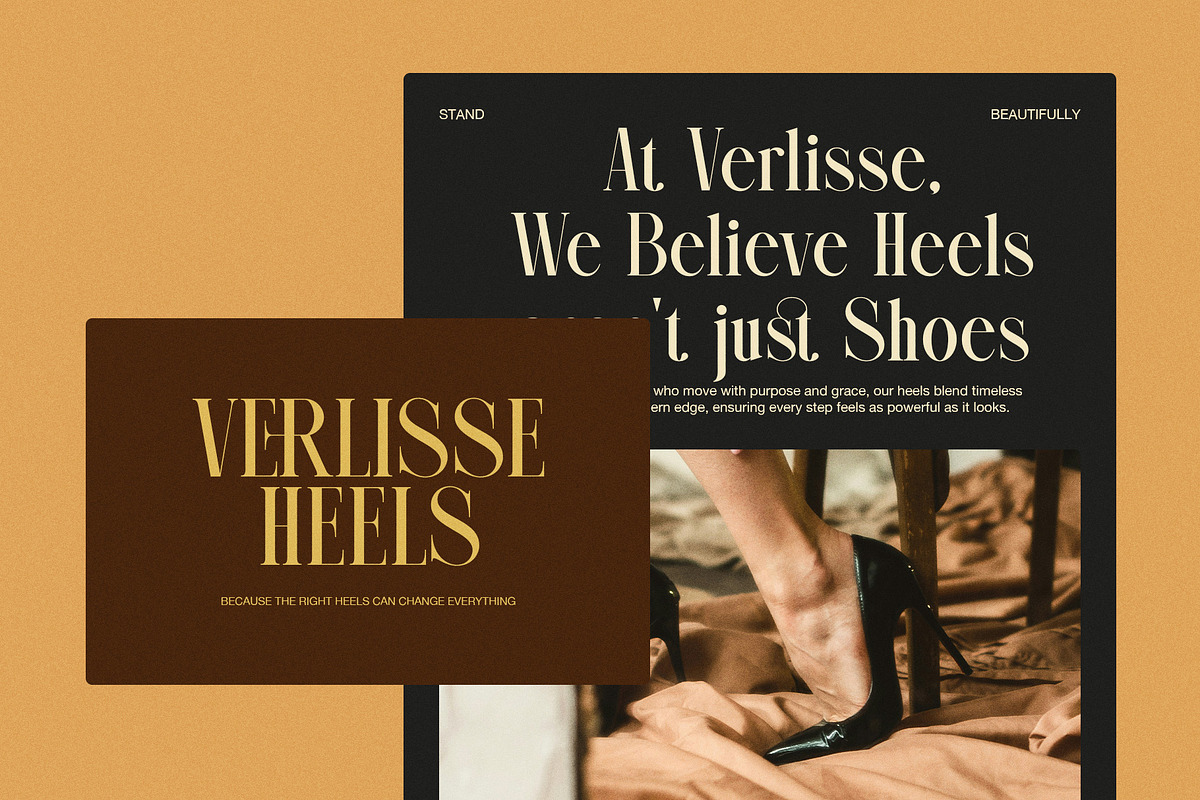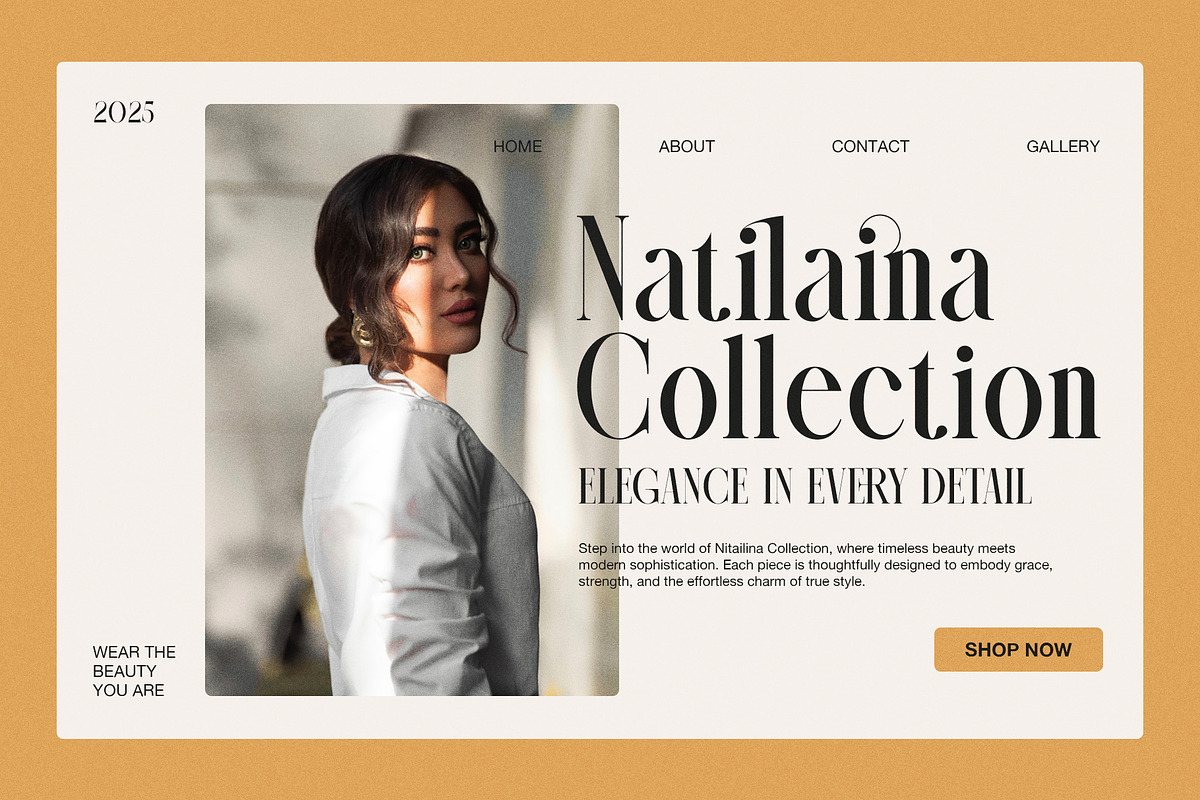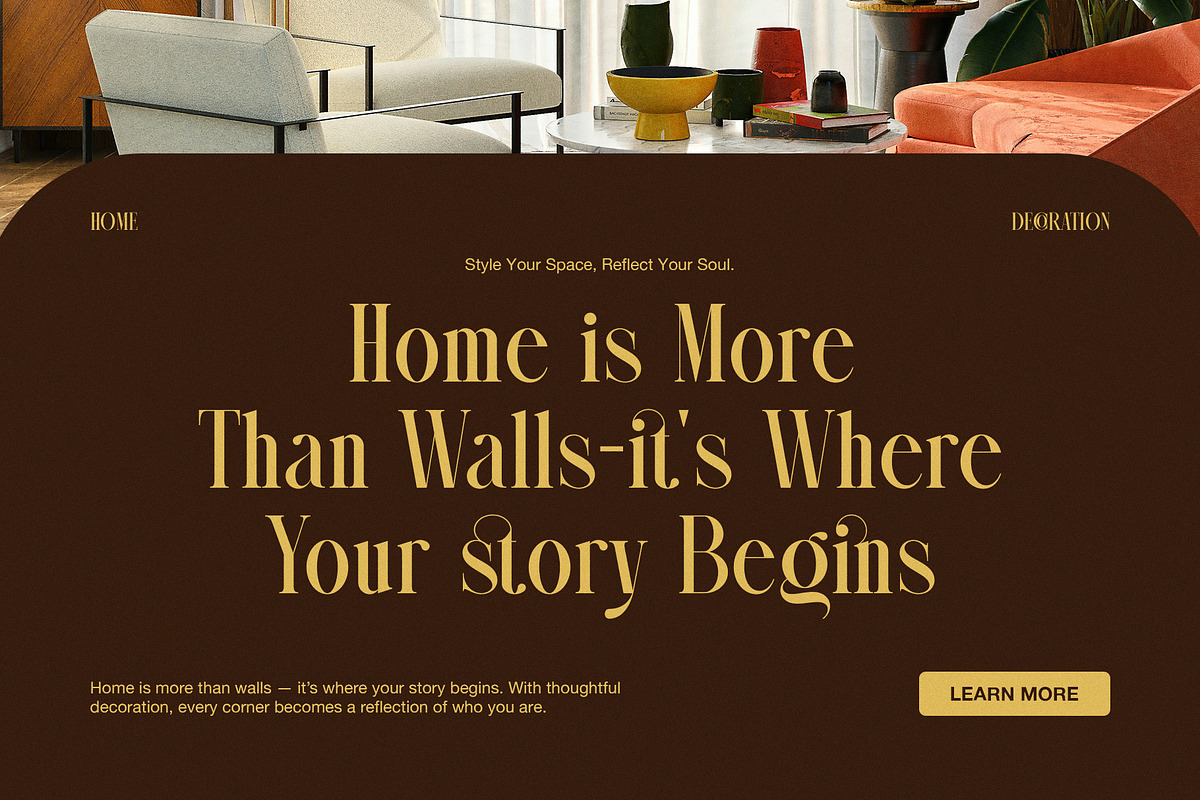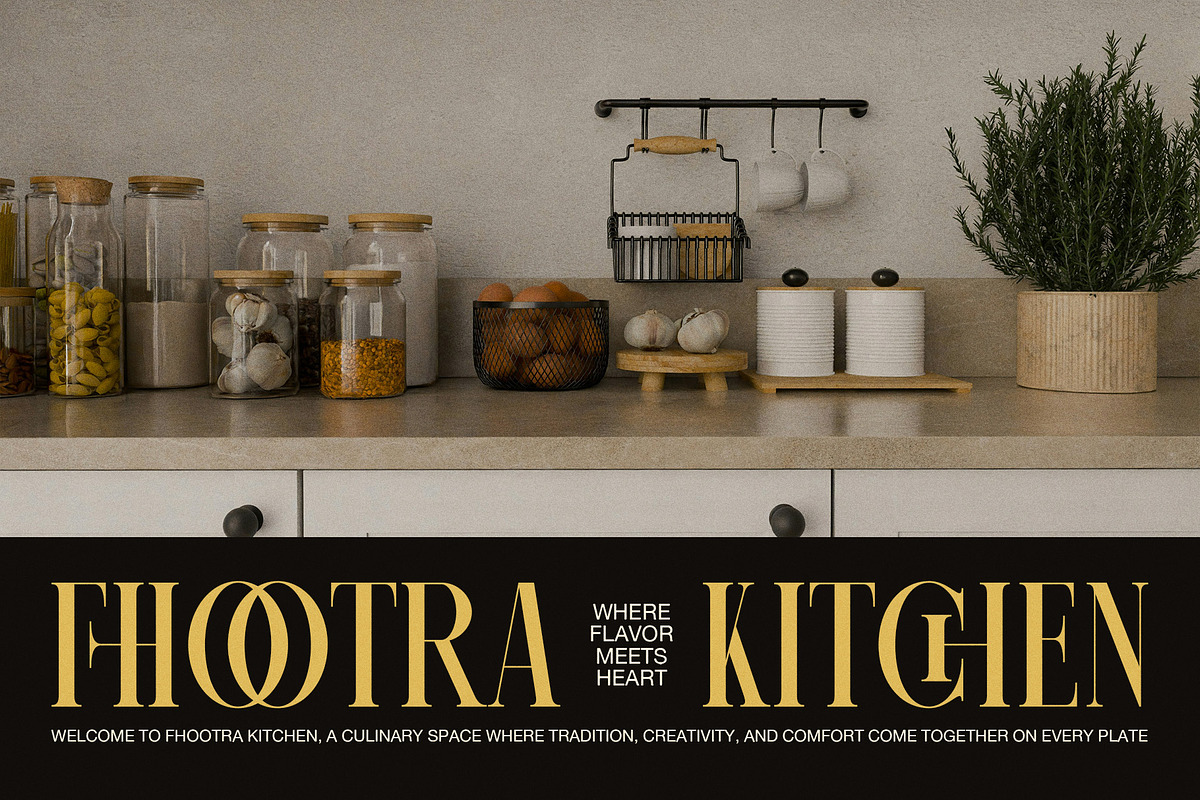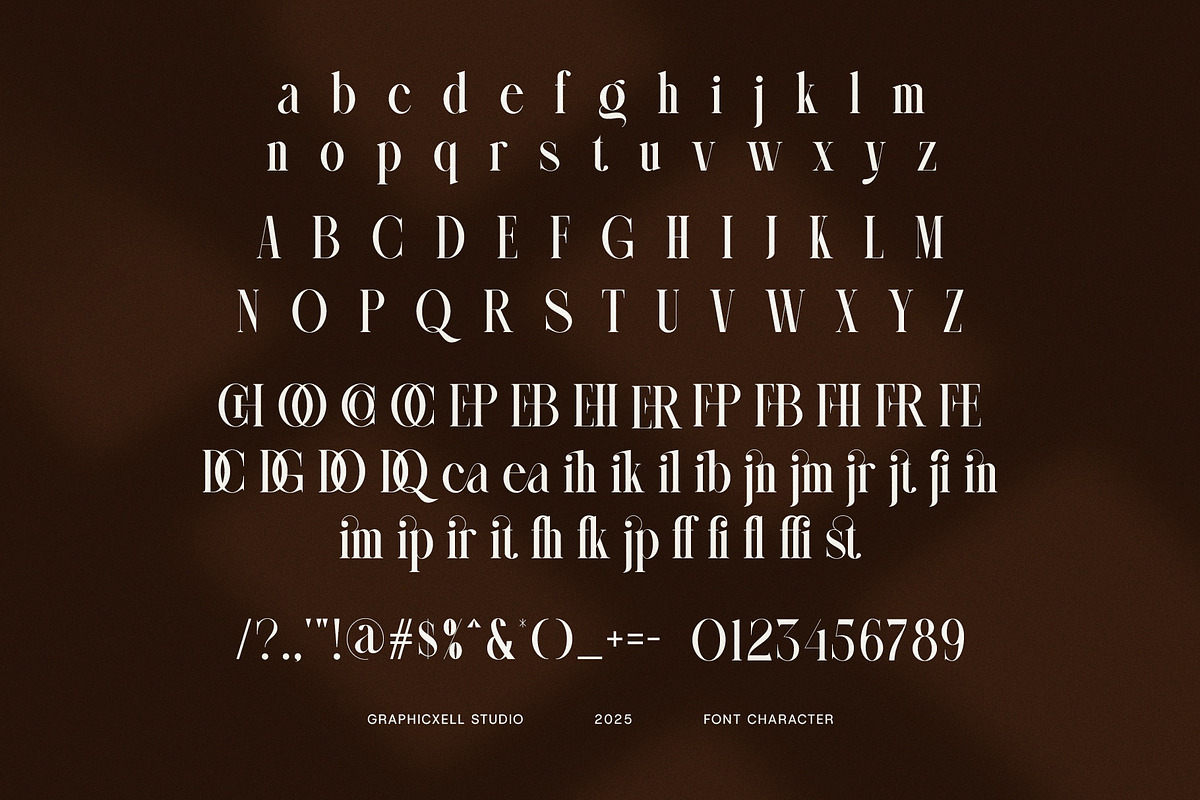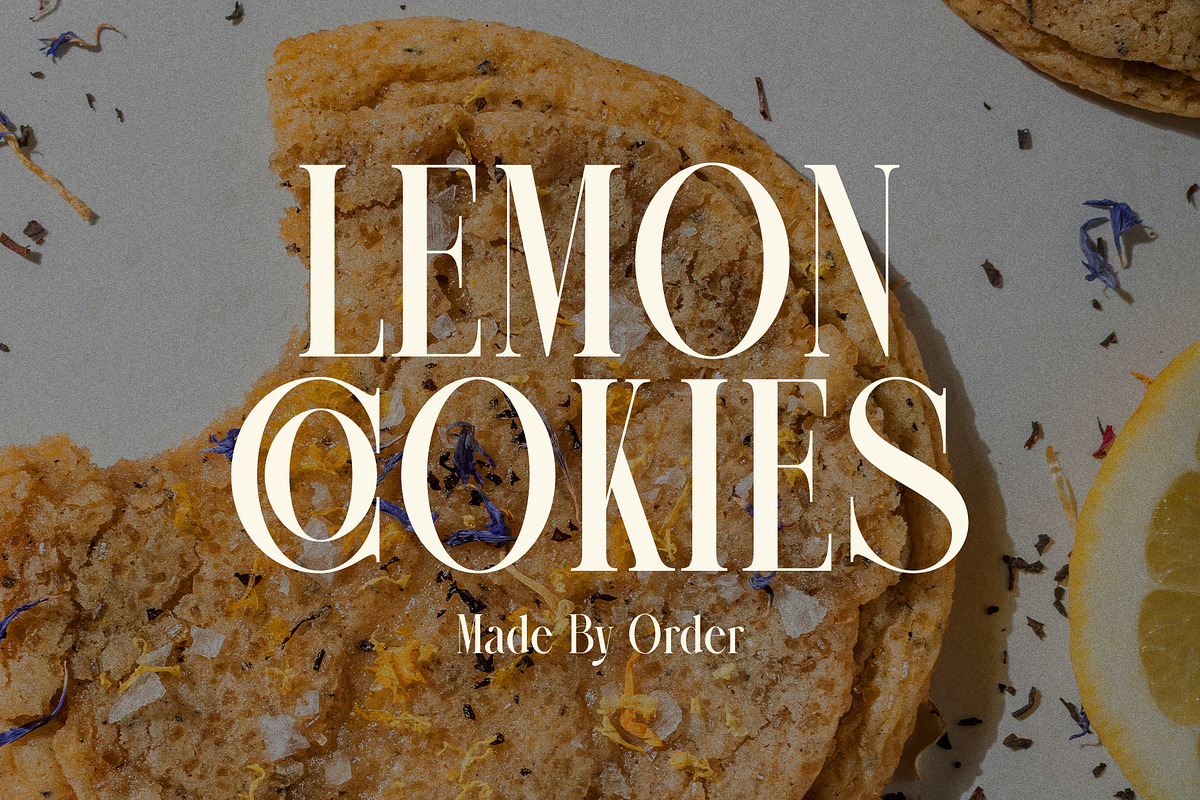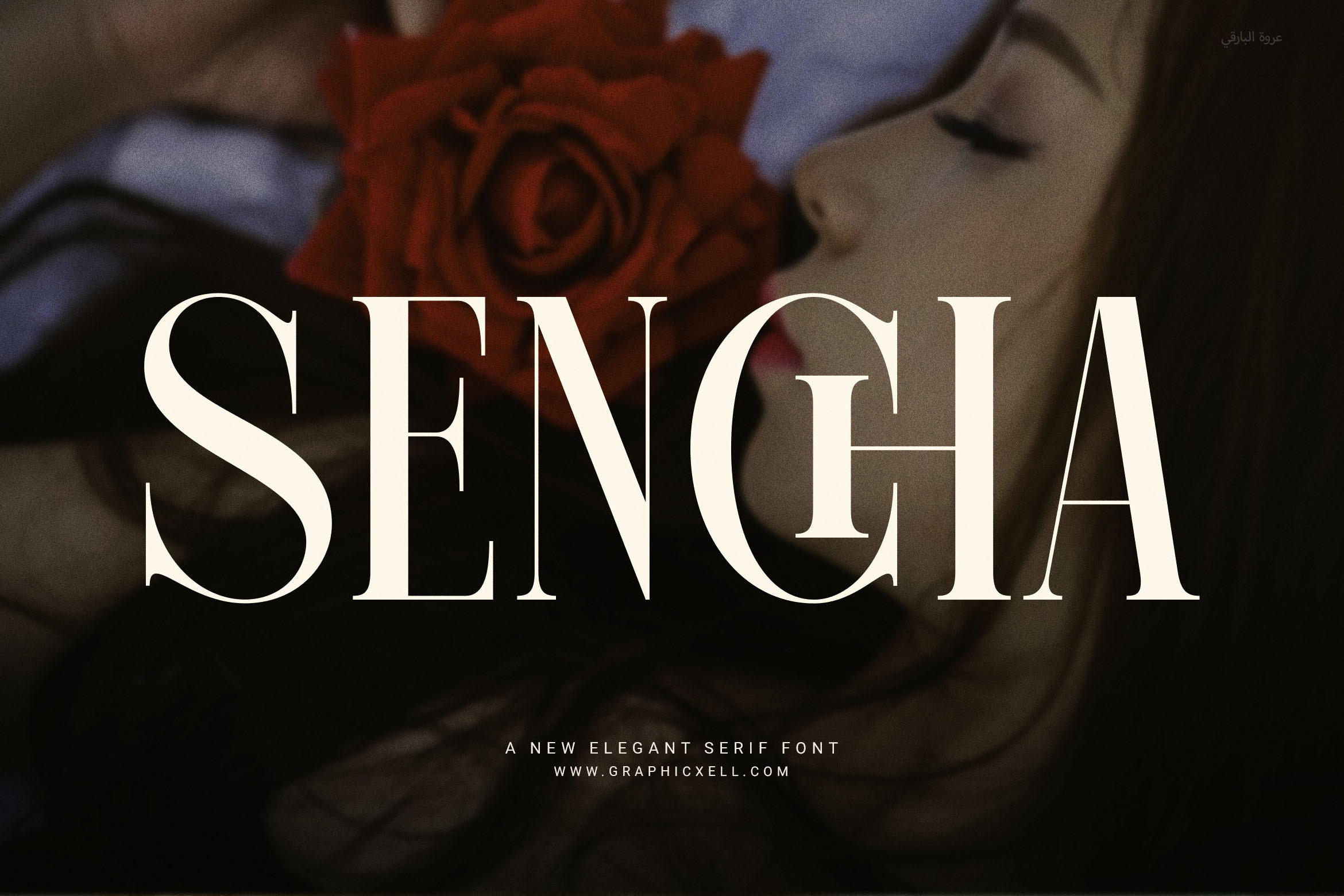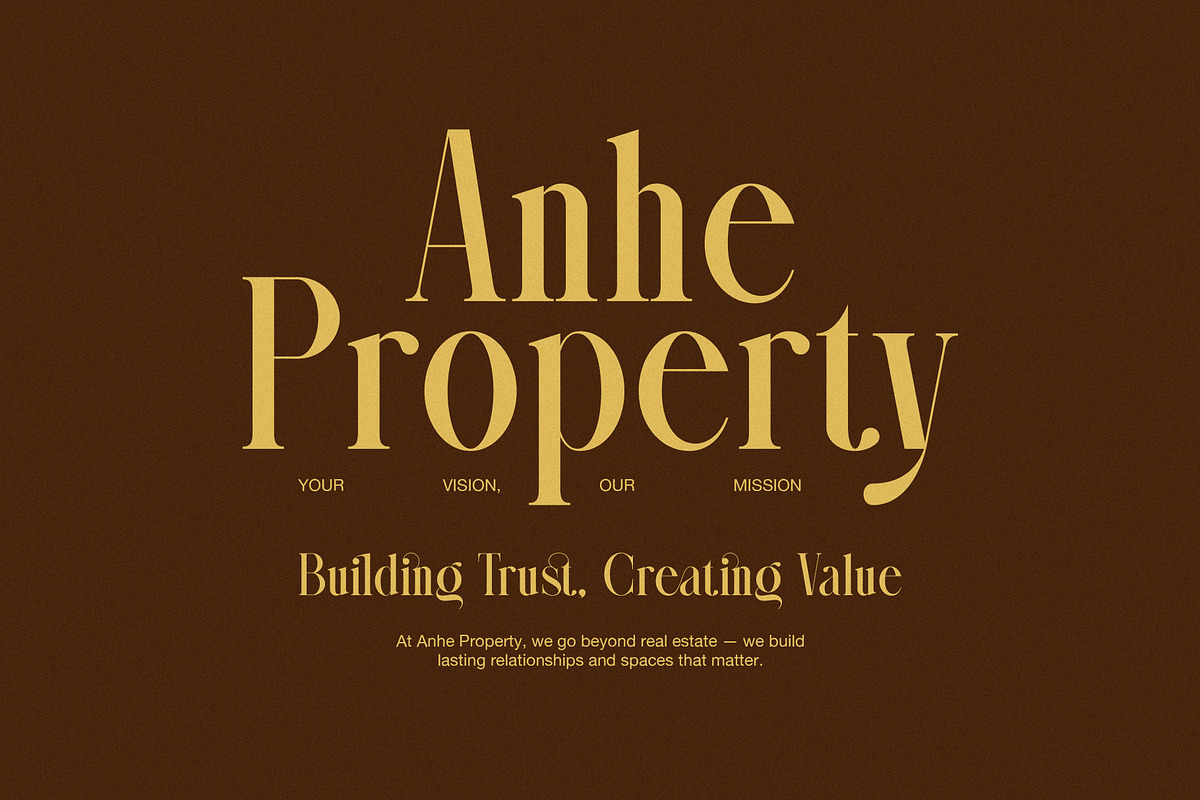
Sencha Elegant Serif Font
Sencha Elegant Serif Font is a modern serif typeface designed to elevate your brand with timeless style and clear elegance. Crafted with smooth curves and balanced letterforms, Sencha brings both character and clarity to any creative work.
Because of its refined shape and clean layout, this font works beautifully across all design needs. Whether you're creating a standout logo, a sophisticated magazine spread, or a stylish product label, Sencha gives your work a fresh and polished feel.
One of Sencha’s best features is its functional ligatures. These special letter combinations help your text flow naturally while adding a touch of charm and uniqueness. That means you don’t have to add extra design elements—Sencha already does the work for you.
✨ Best Used For:
Logo and brand identity
Packaging and product design
Wedding invitations and cards
Magazine titles and editorials
Fashion, beauty, and boutique branding
Social media content and blog headers
Website titles and banners
Elegant print materials
✏️ Why Designers Choose Sencha: Sencha offers the perfect balance of elegance and usability. It’s versatile, clean, and ready to take your project to the next level—whether it’s for business, fashion, or personal design.
If you're looking for a timeless serif that feels modern and works across all platforms, Sencha Elegant Serif Font is a top choice.